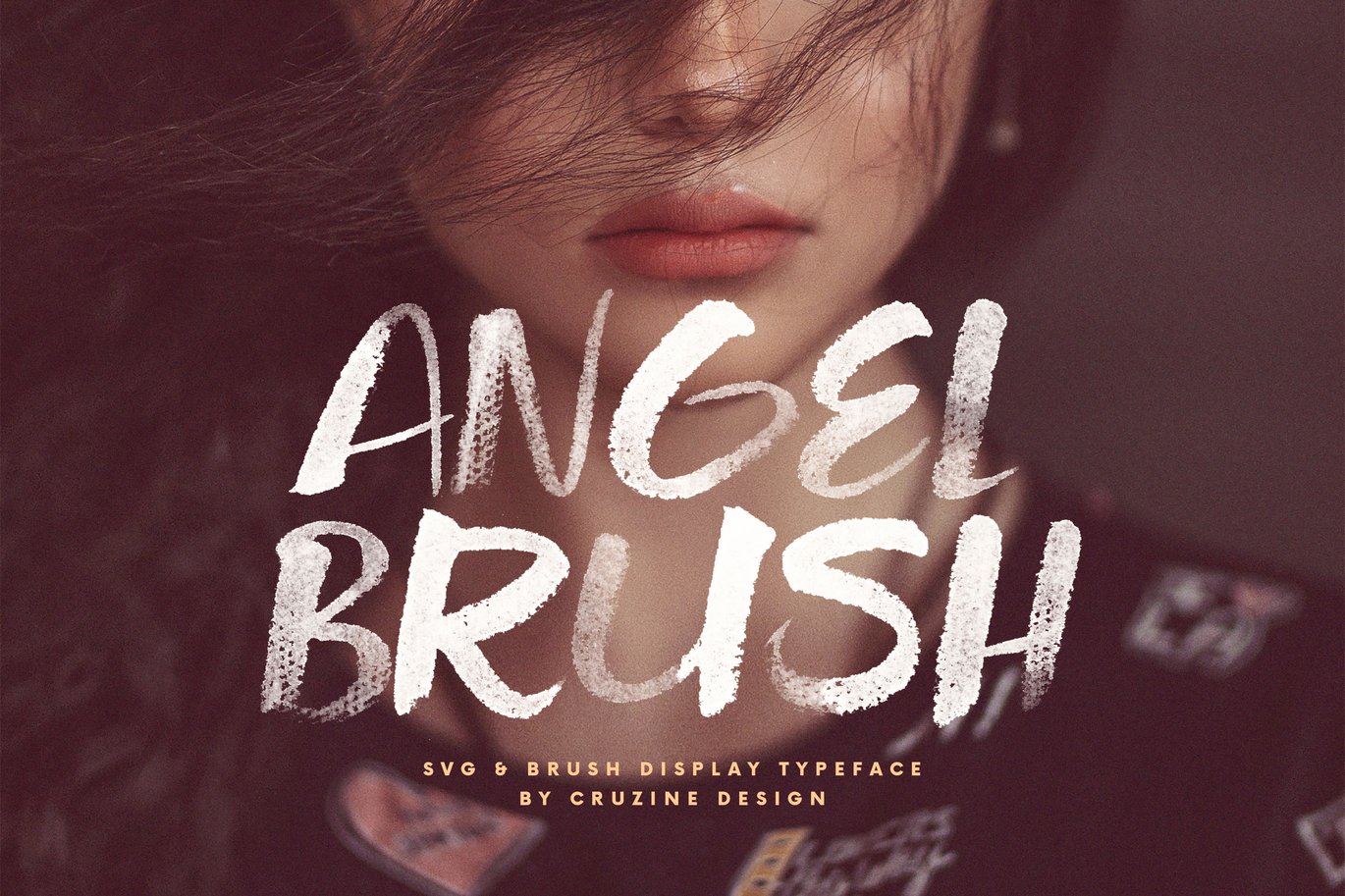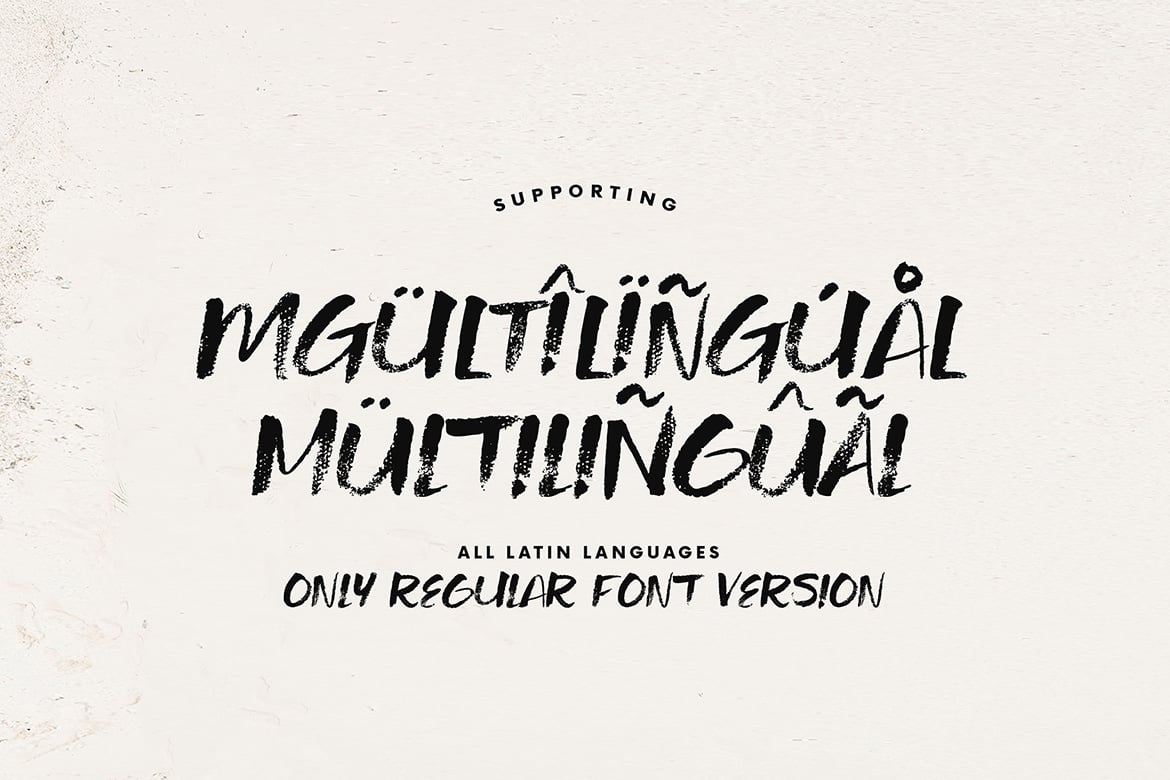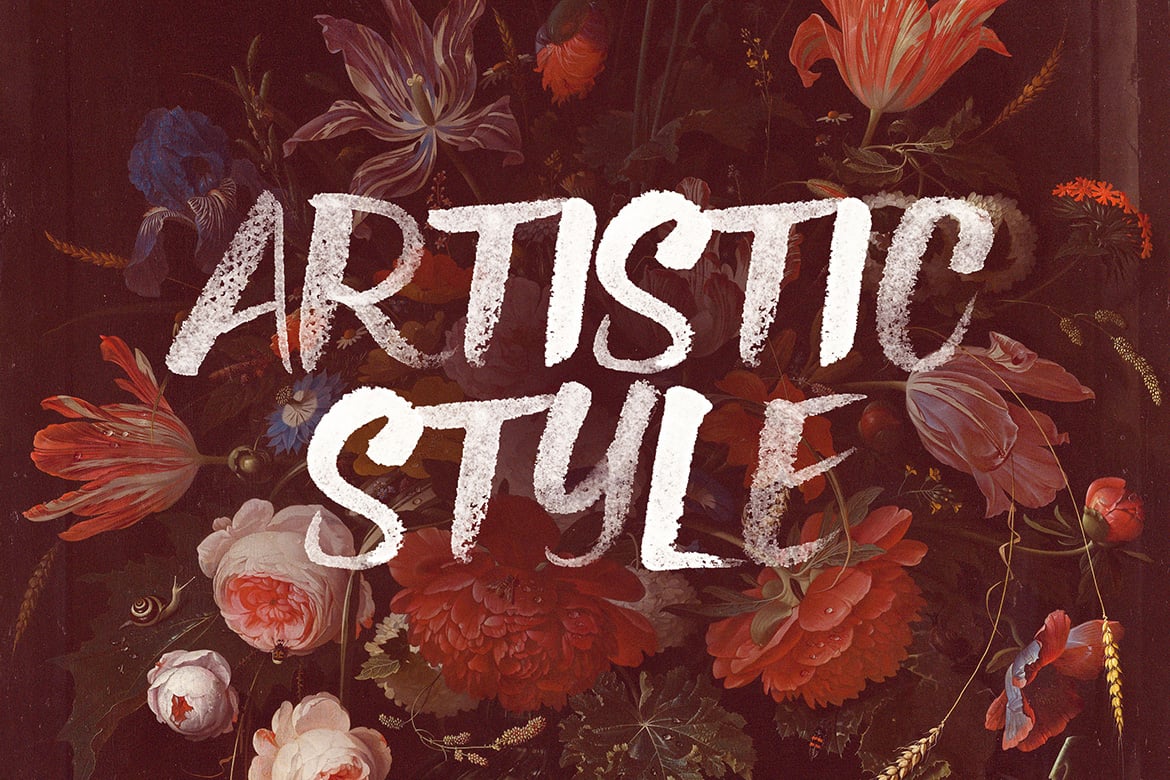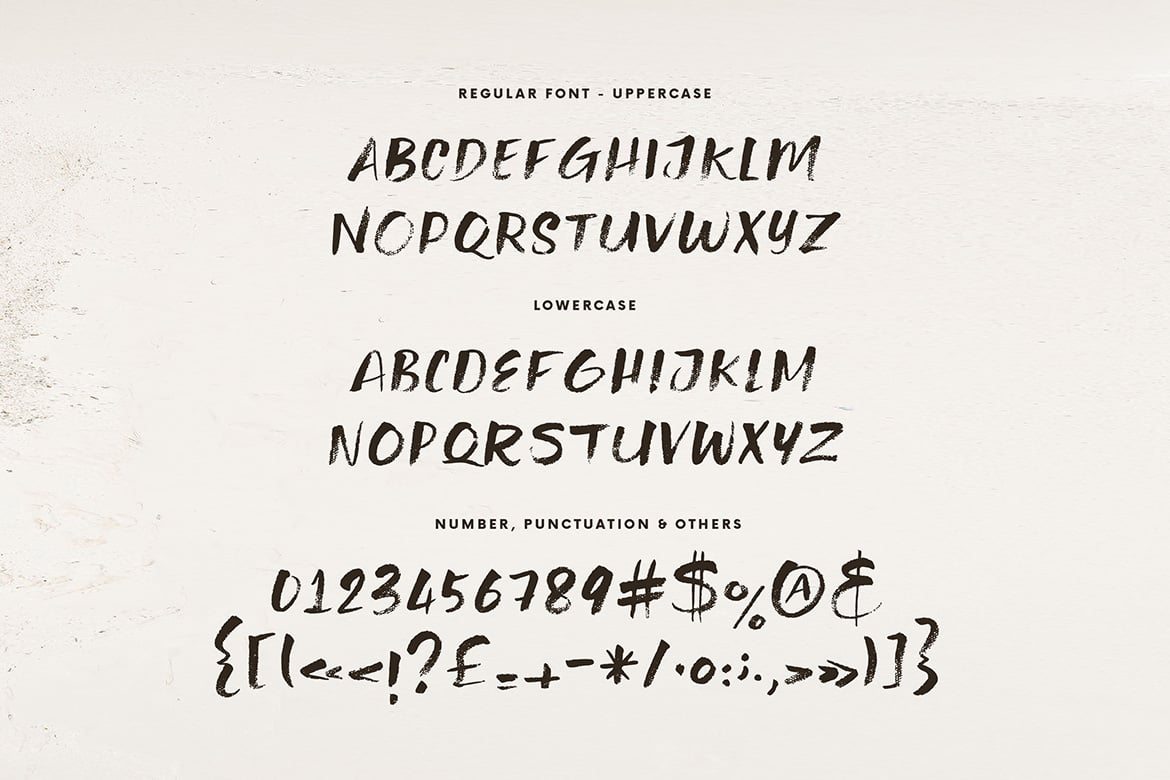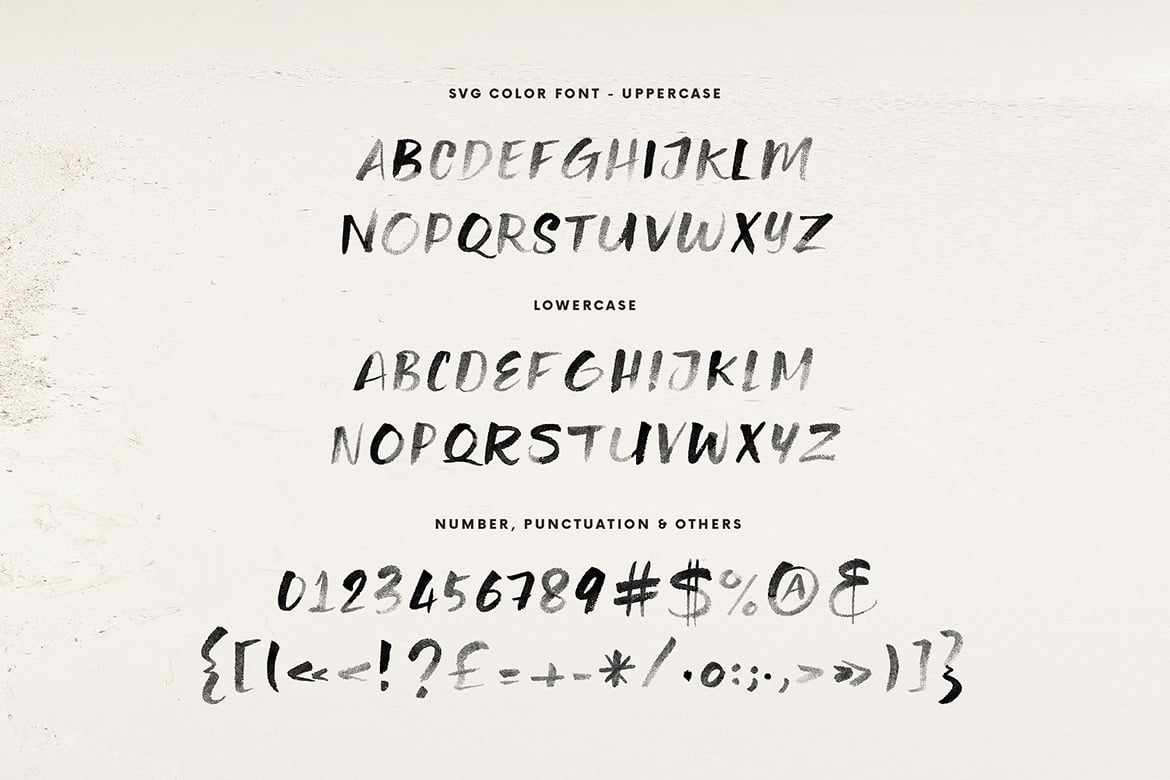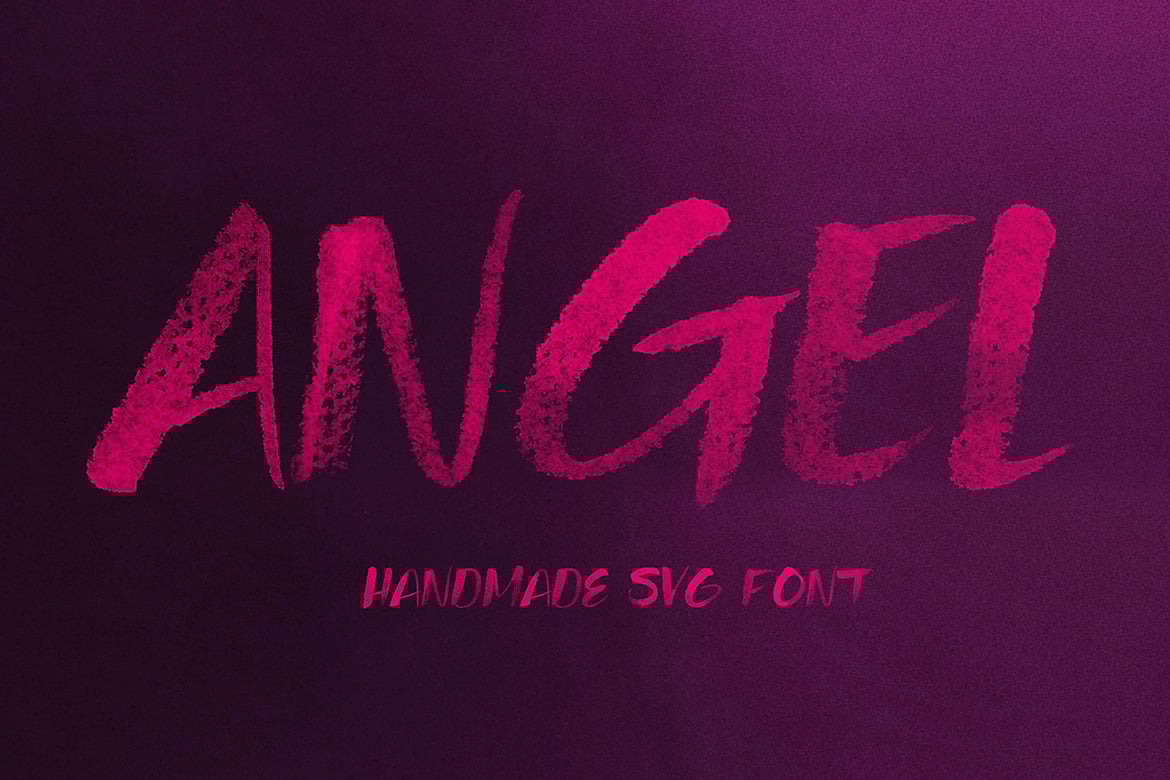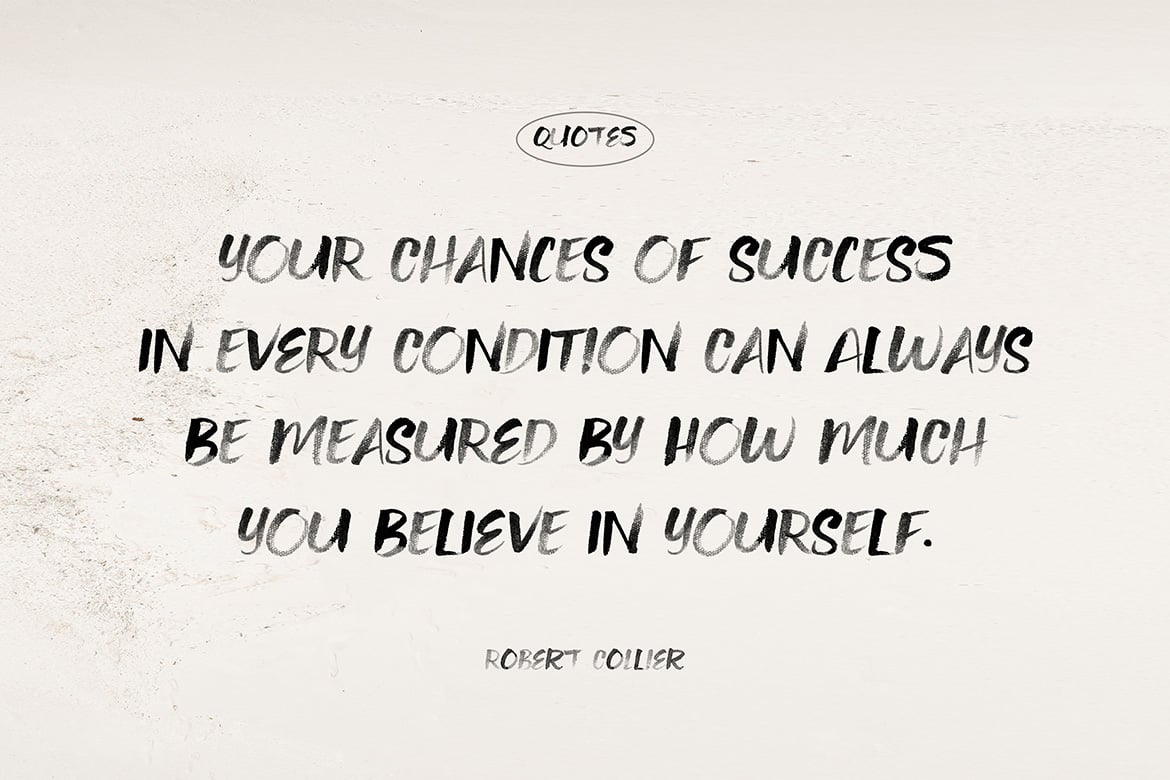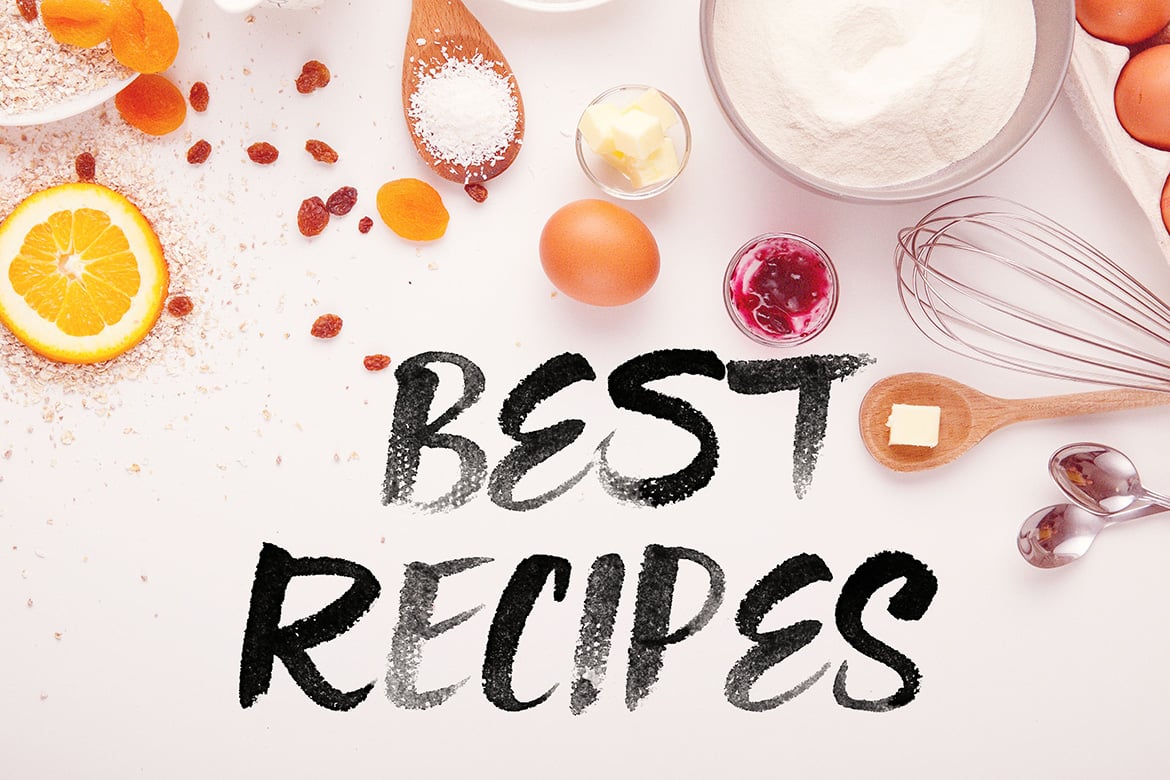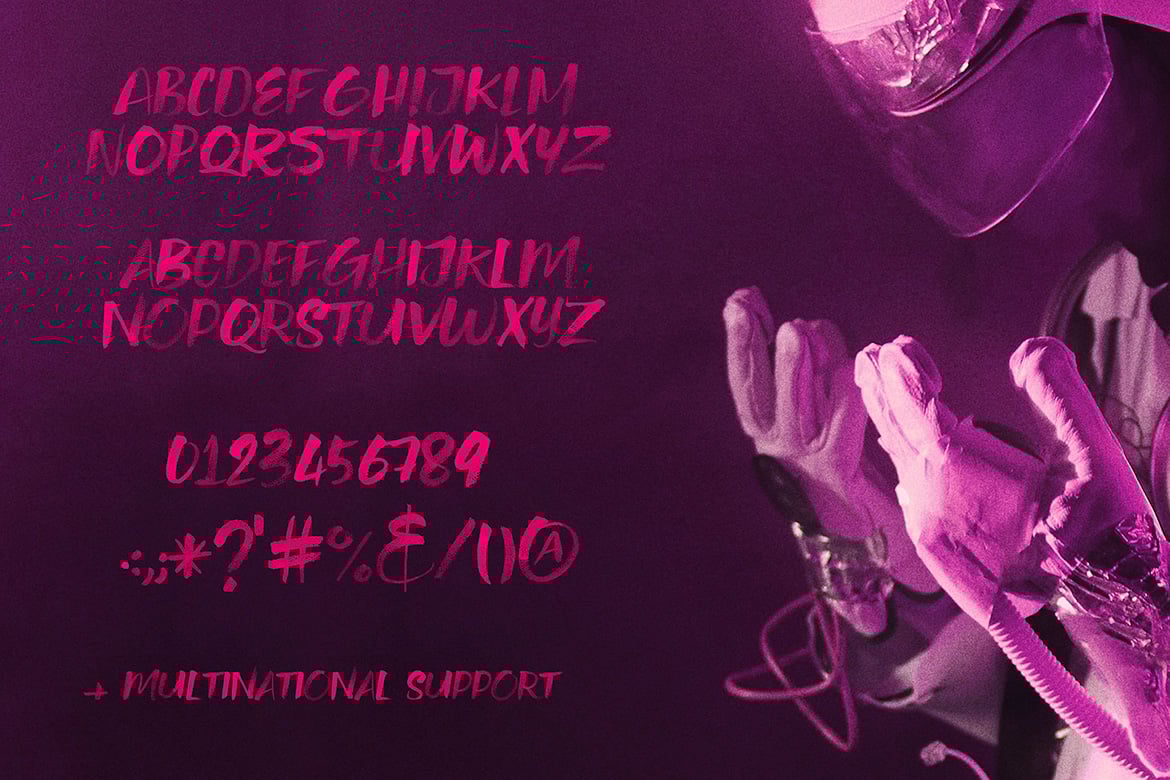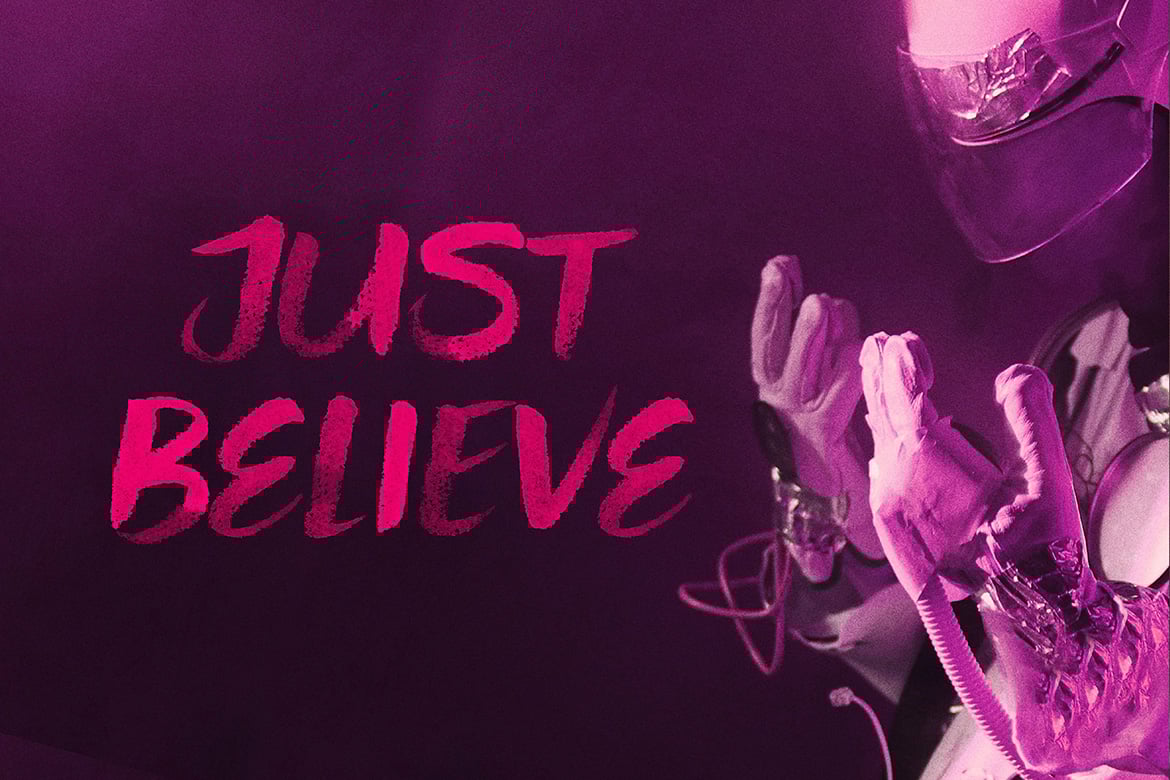
Angel Brush & SVG Font
Brush, rough, elegant or grunge style script display font for your new projects. Handwritten with organic watercolor brush. Great for grunge, urban or artistic projects!